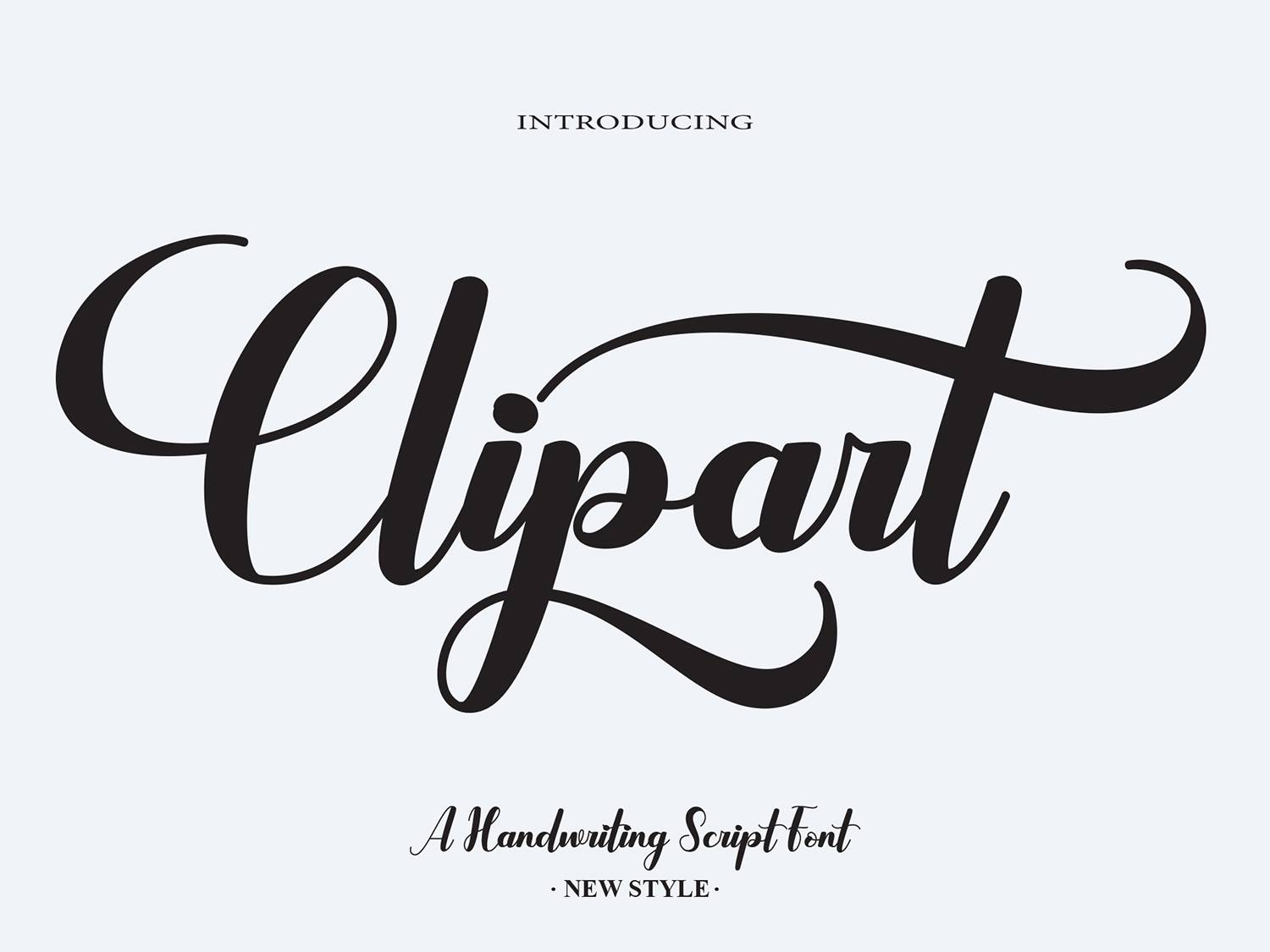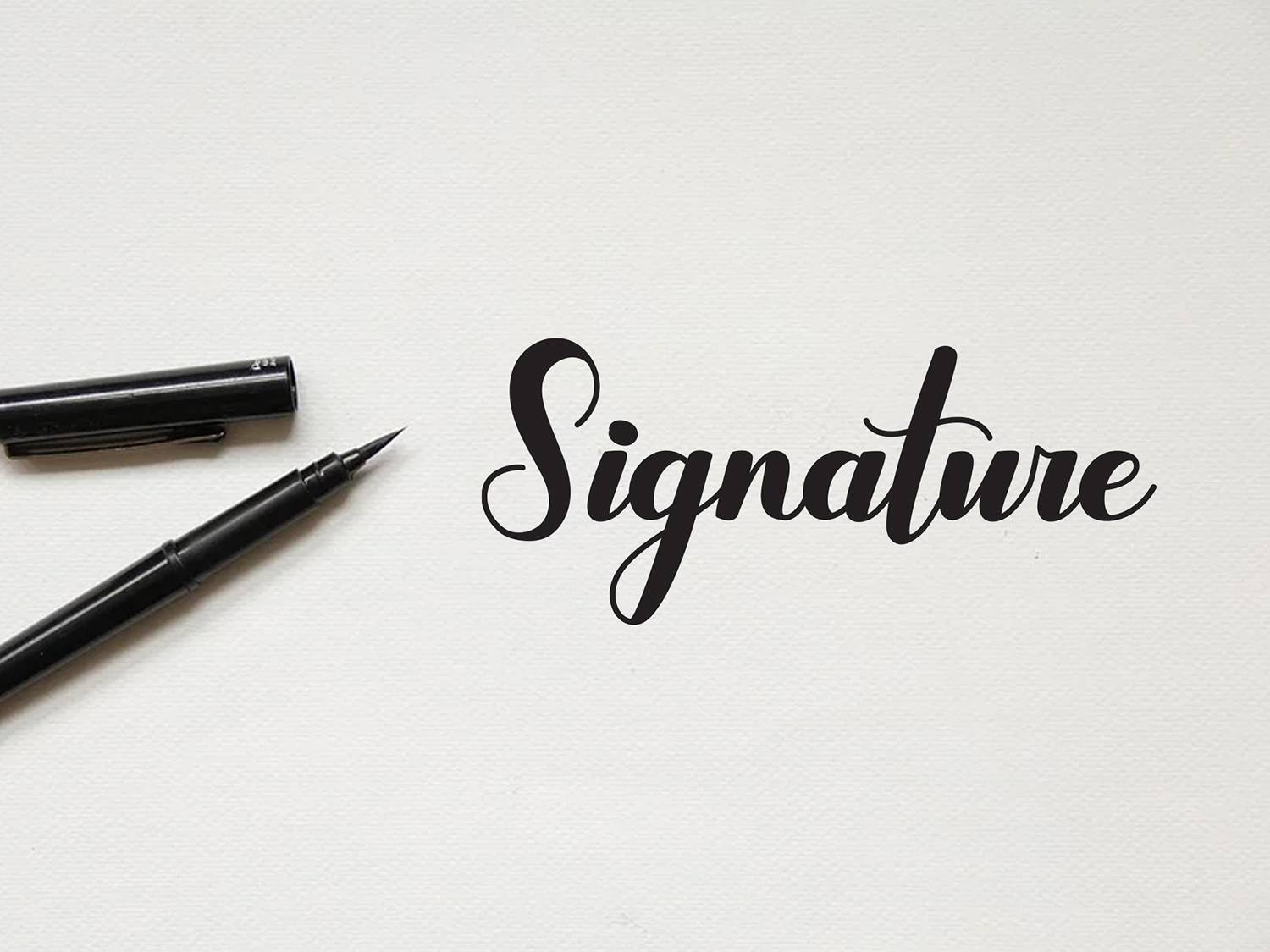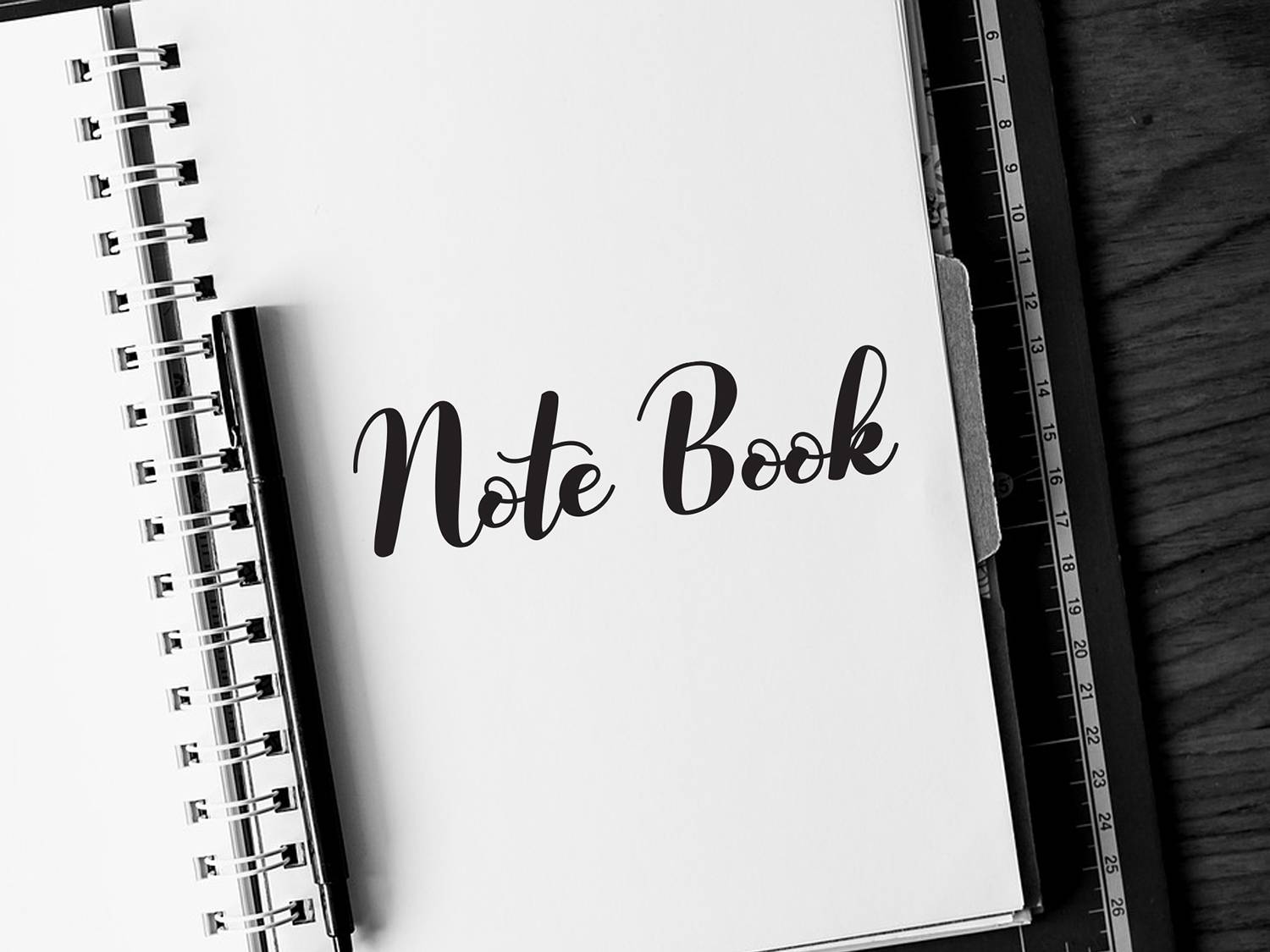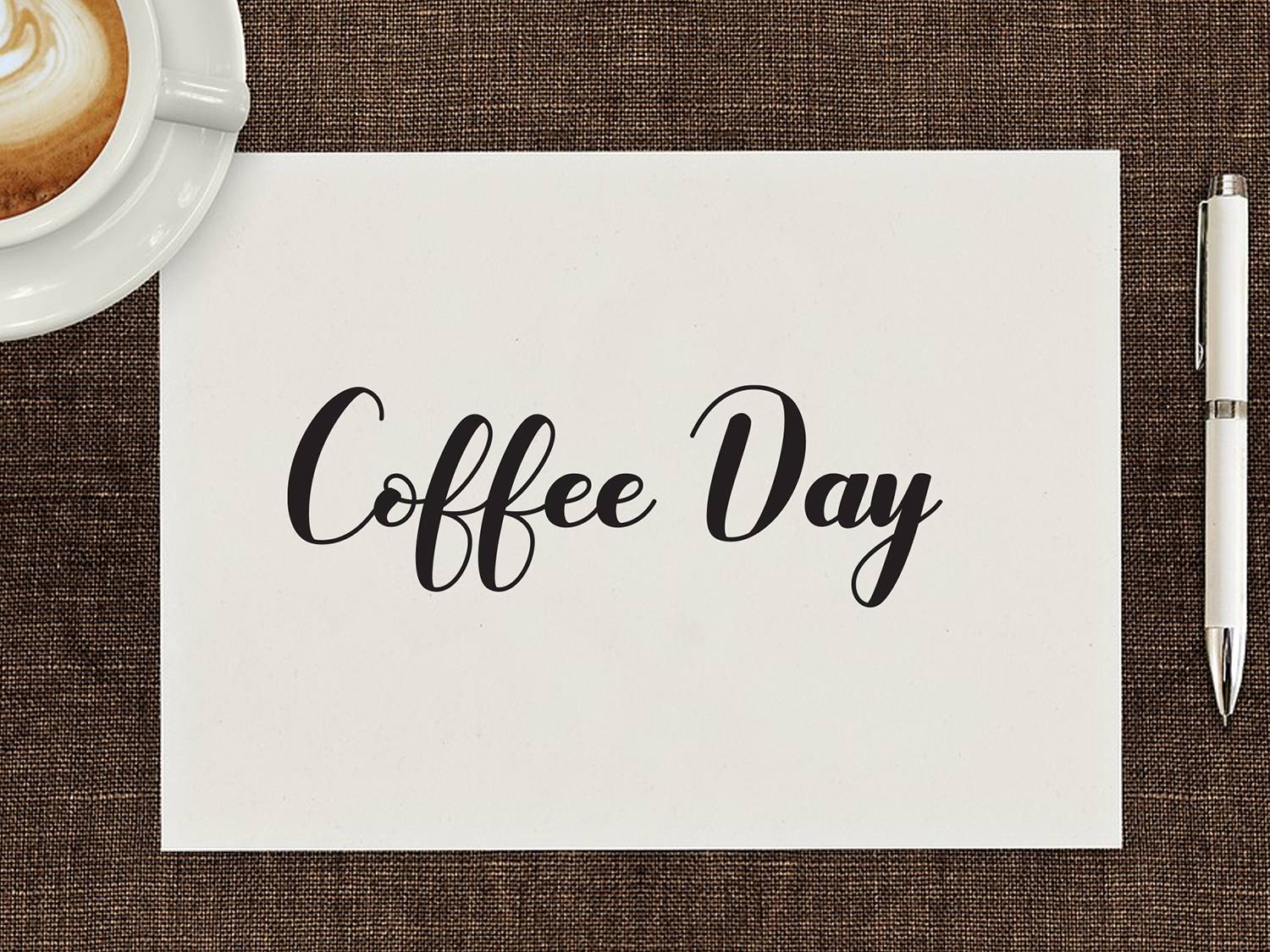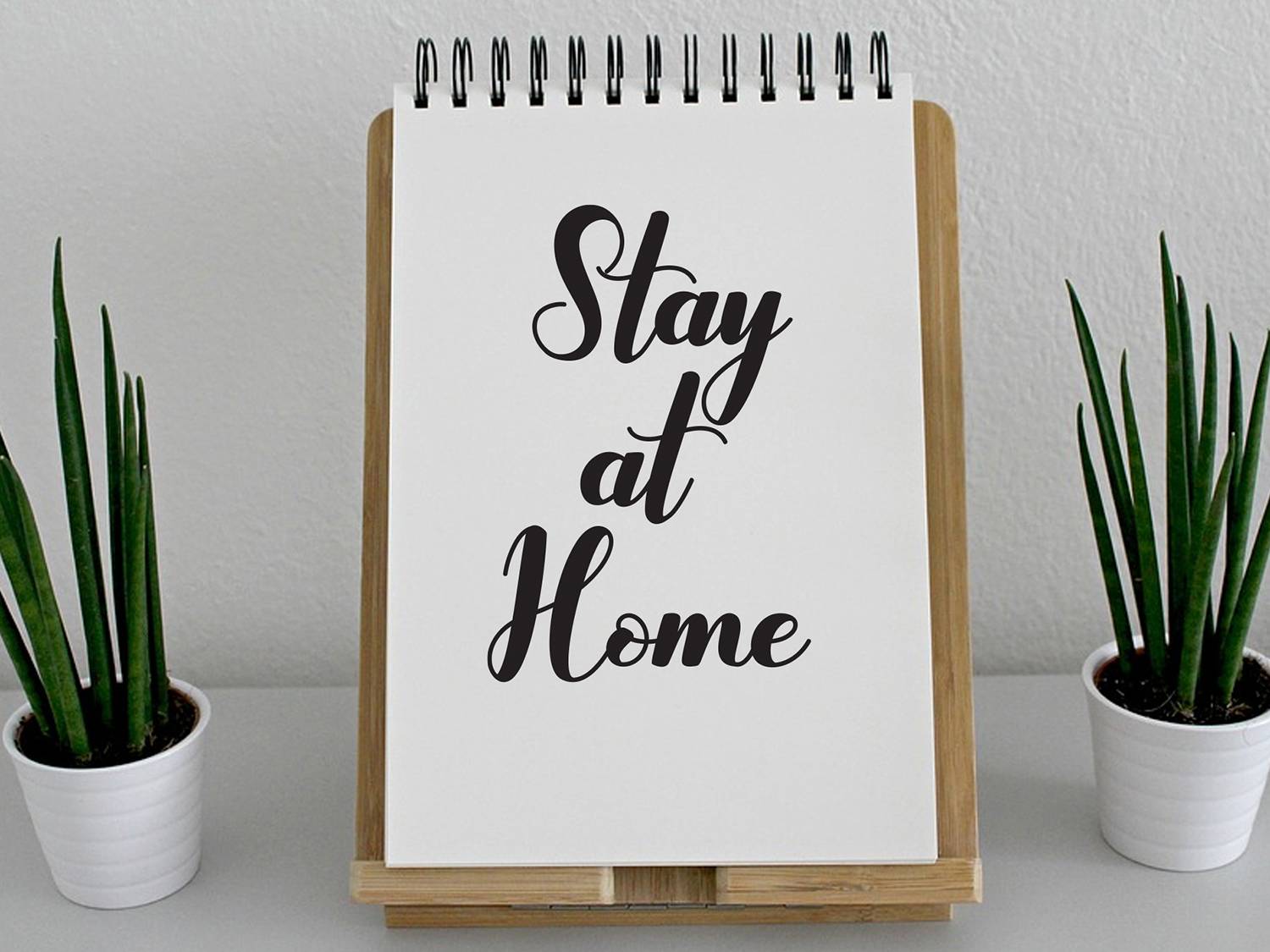
Clipart Font is a stylish script typeface with elegant, flowing letterforms and a bold weight that adds strong personality. Its high contrast between thick and thin strokes combined with intricate swashes creates a sophisticated yet lively feel, perfect for branding, invitations, or headlines that need a touch of elegance and charm. This font works especially well in creative and fashion contexts where a refined, handcrafted look is desired.
Clipart Font
About Clipart Font